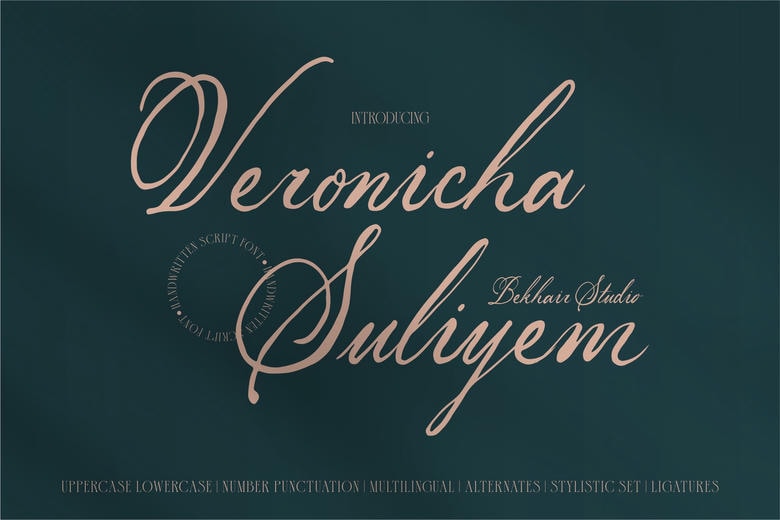
Veronicha Suliyem Font
Veronicha Suliyem is one with the beautiful handwritten brush font touches conveying smooth arcs and gentle curves for enhanced feminine shapes. Despite it being light weight it is versatile to give very intricate designs that are perfect for personal and luxurious products.
Appropriate for the use in magazine, poster, advertisement, skincare brand logo, fashion brand etc as it looks classy and elegant. From headlines to logos or product packaging, Veronicha Suliyem offers a timeless and chic concept of aesthetics.
Veronicha Suliyem Handwritten Font